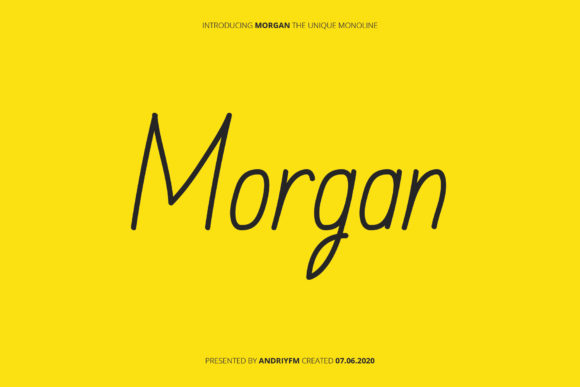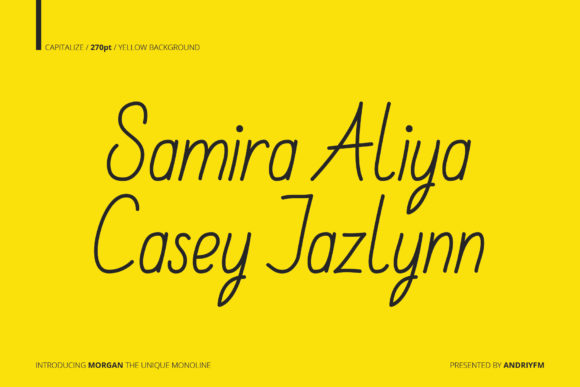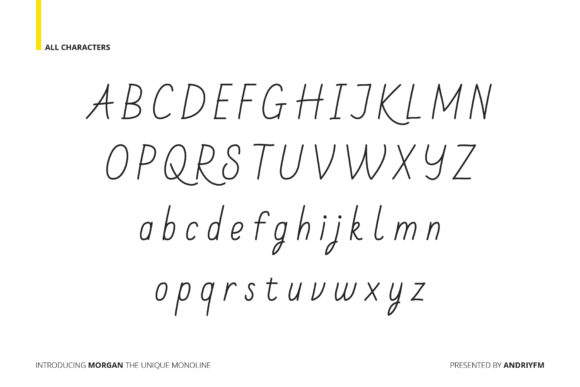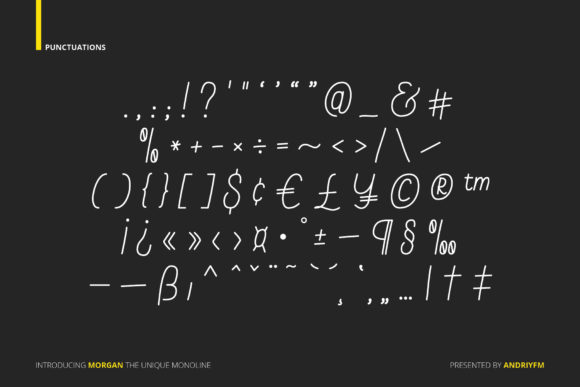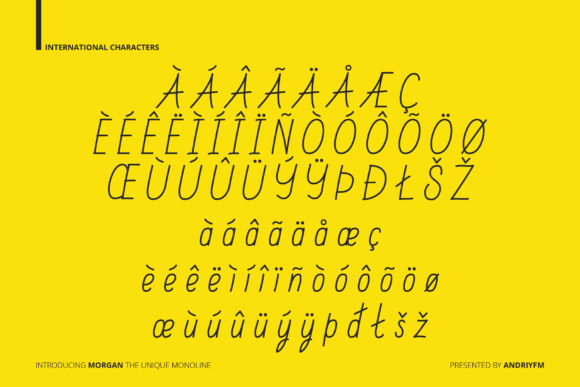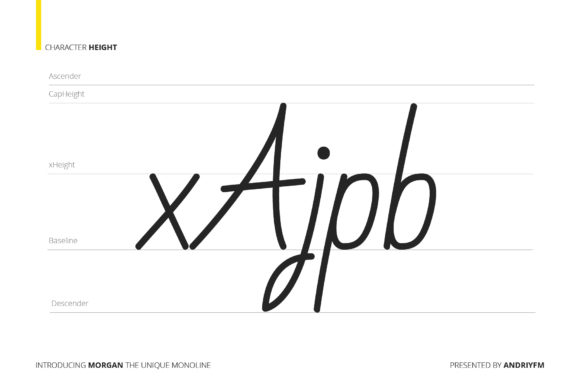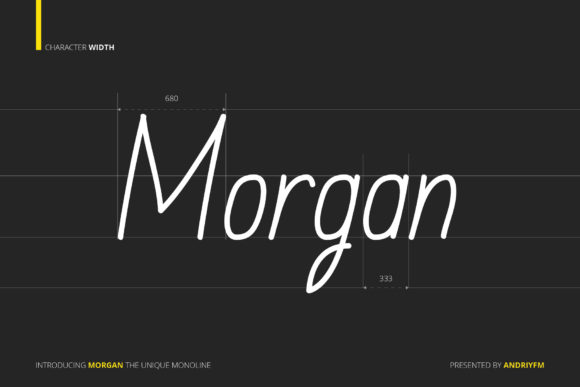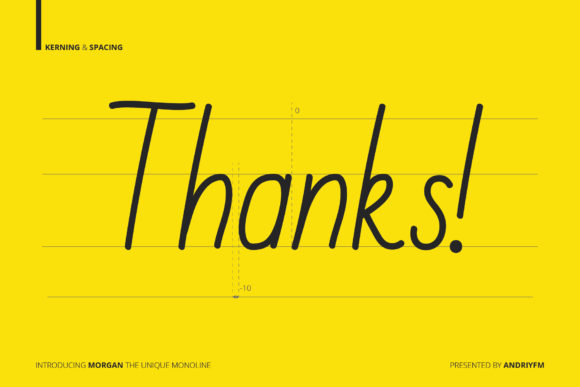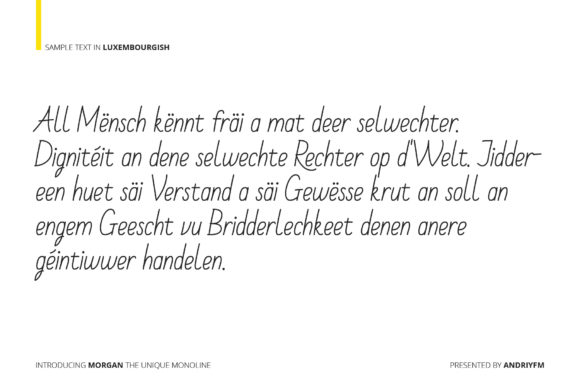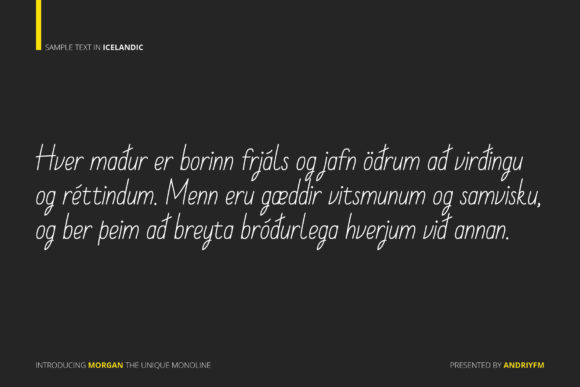
Morgan Font
About Morgan Font
Morgan is a delicate handwritten font. It looks stunning on wedding invitations, thank you cards, quotes, greeting cards, logos, business cards and every other design which needs a handwritten touch.